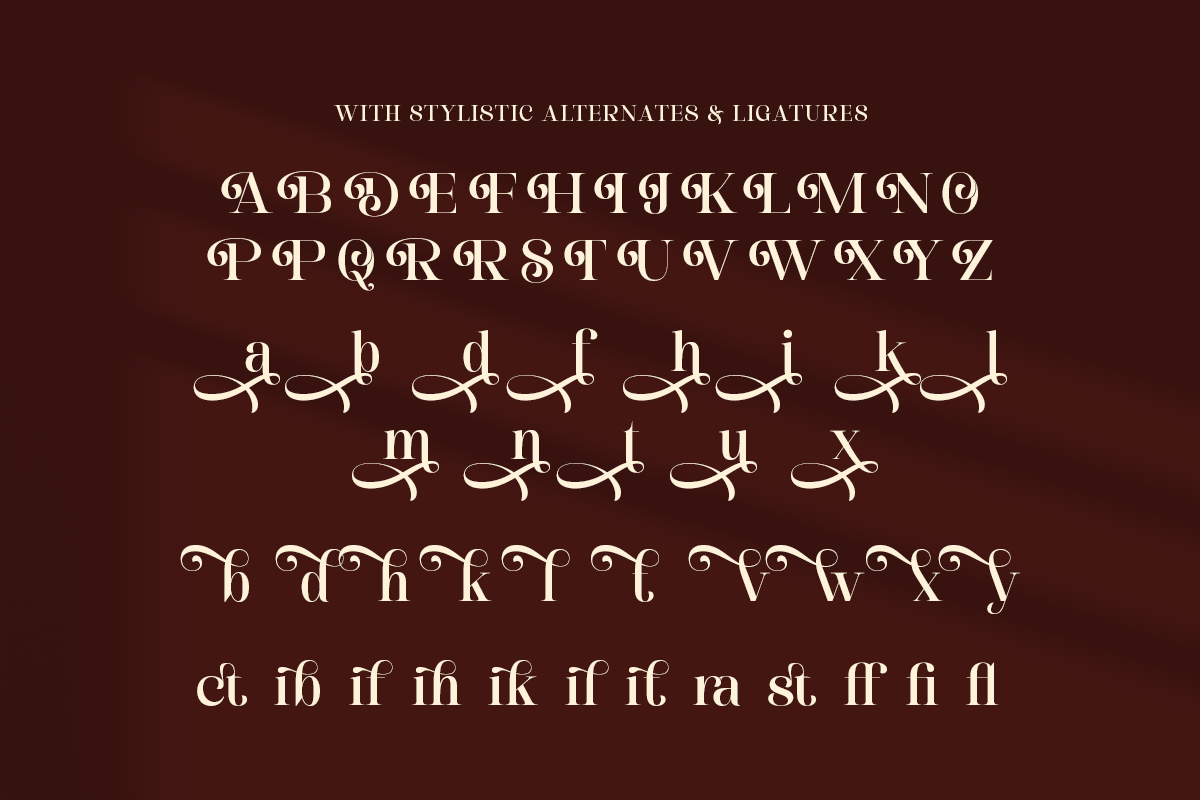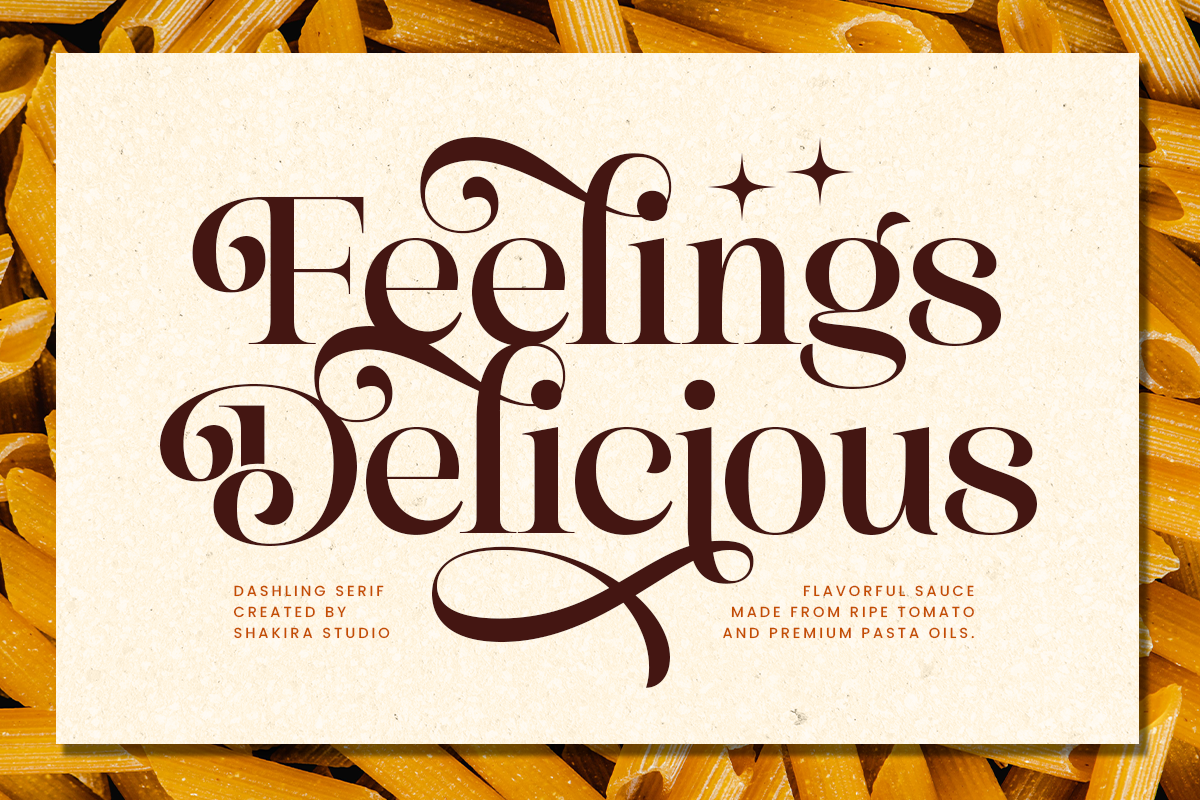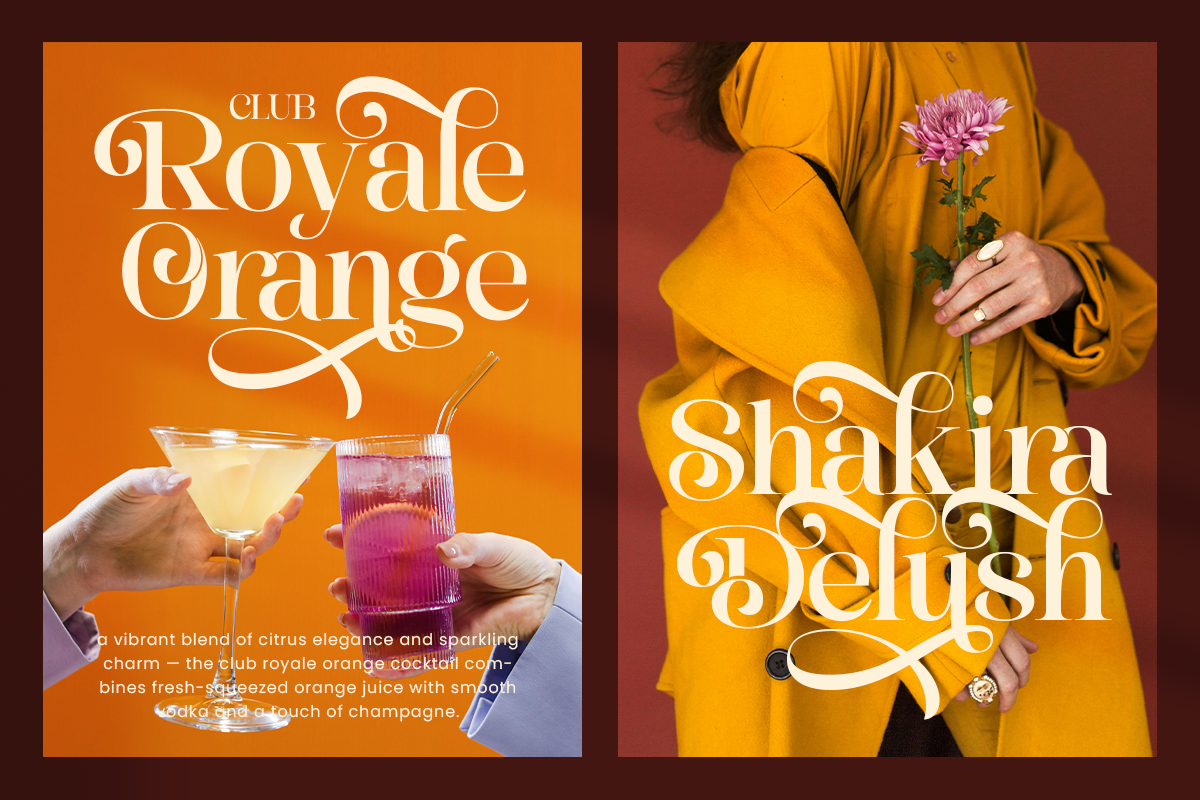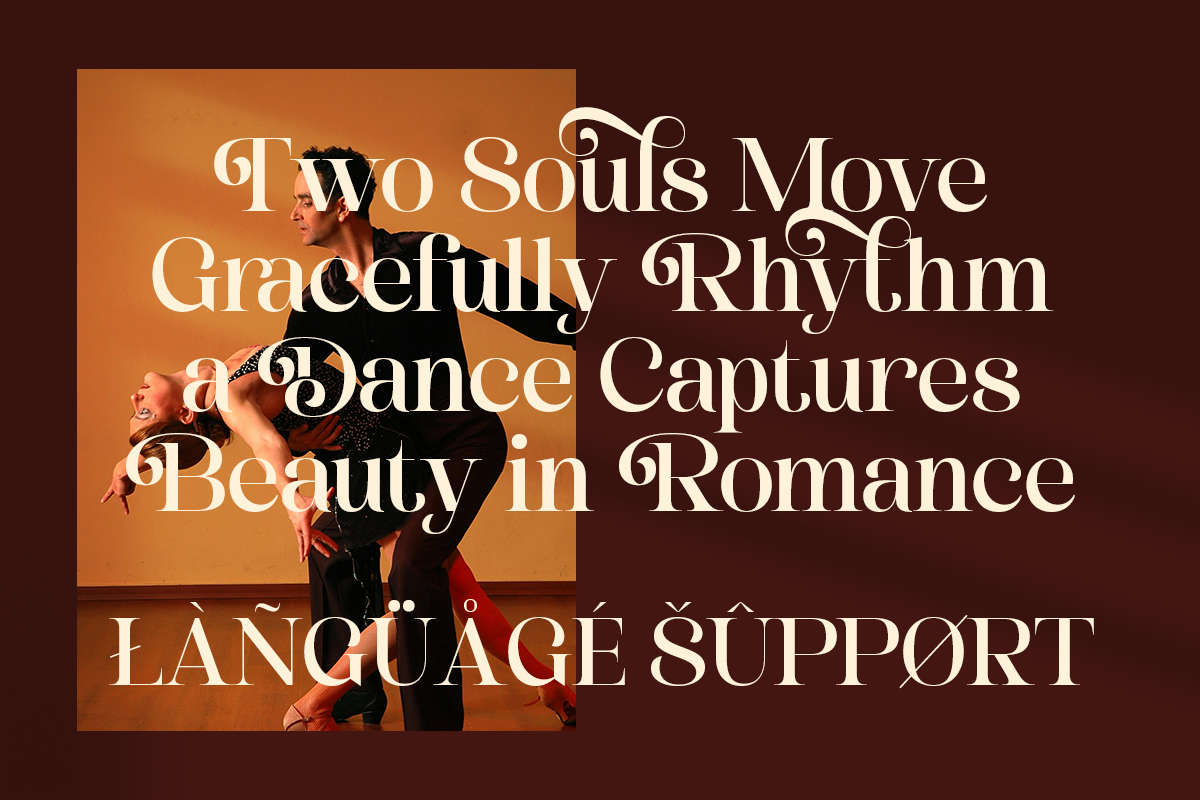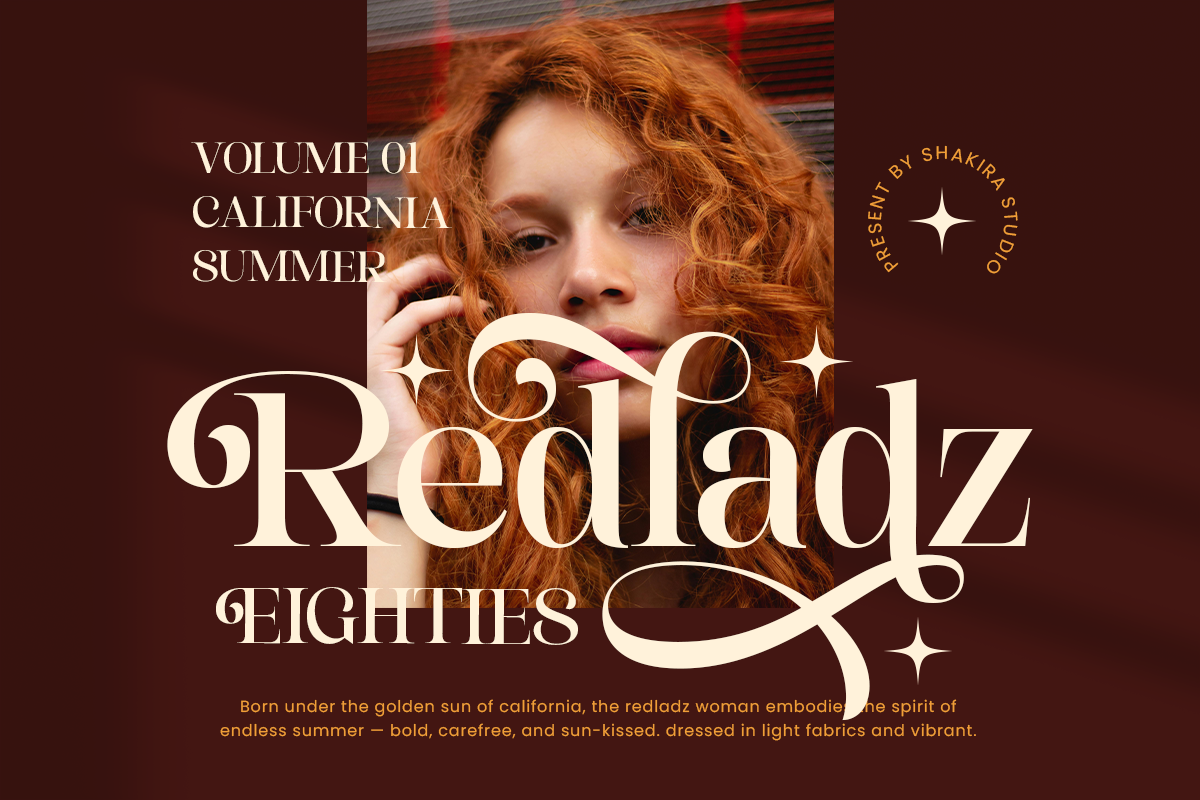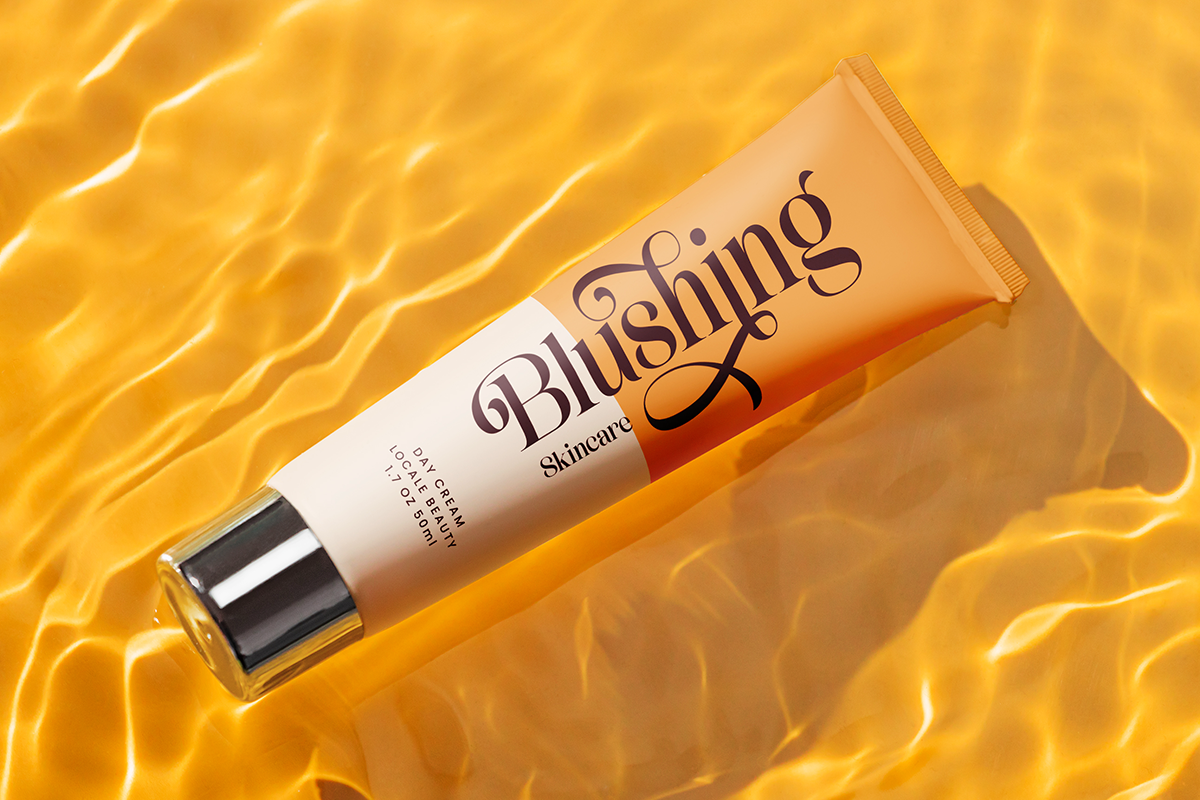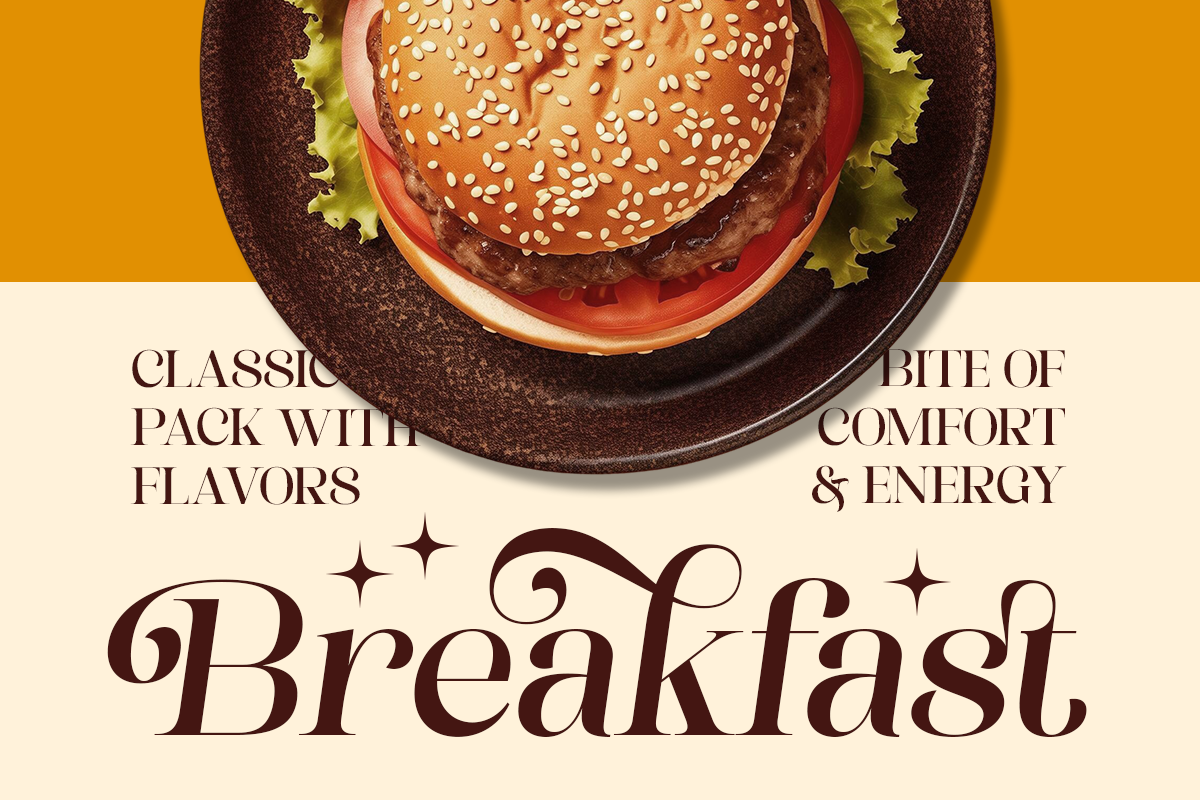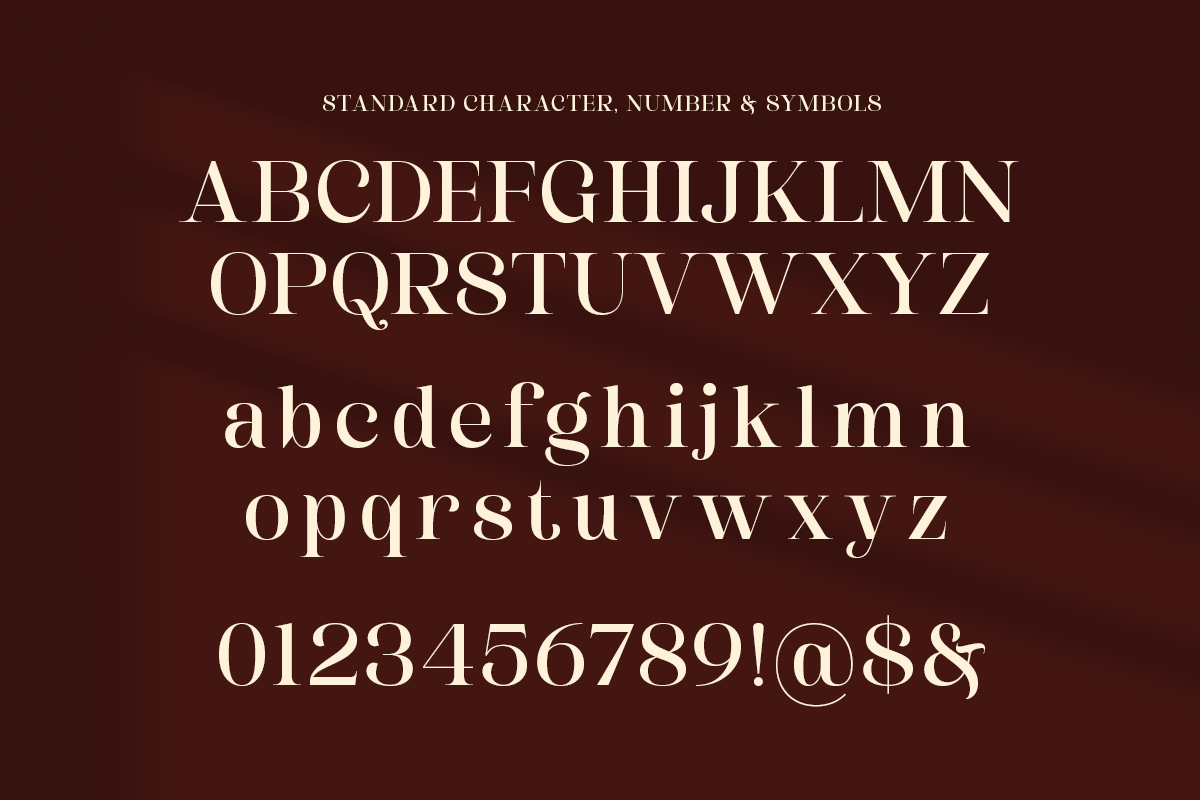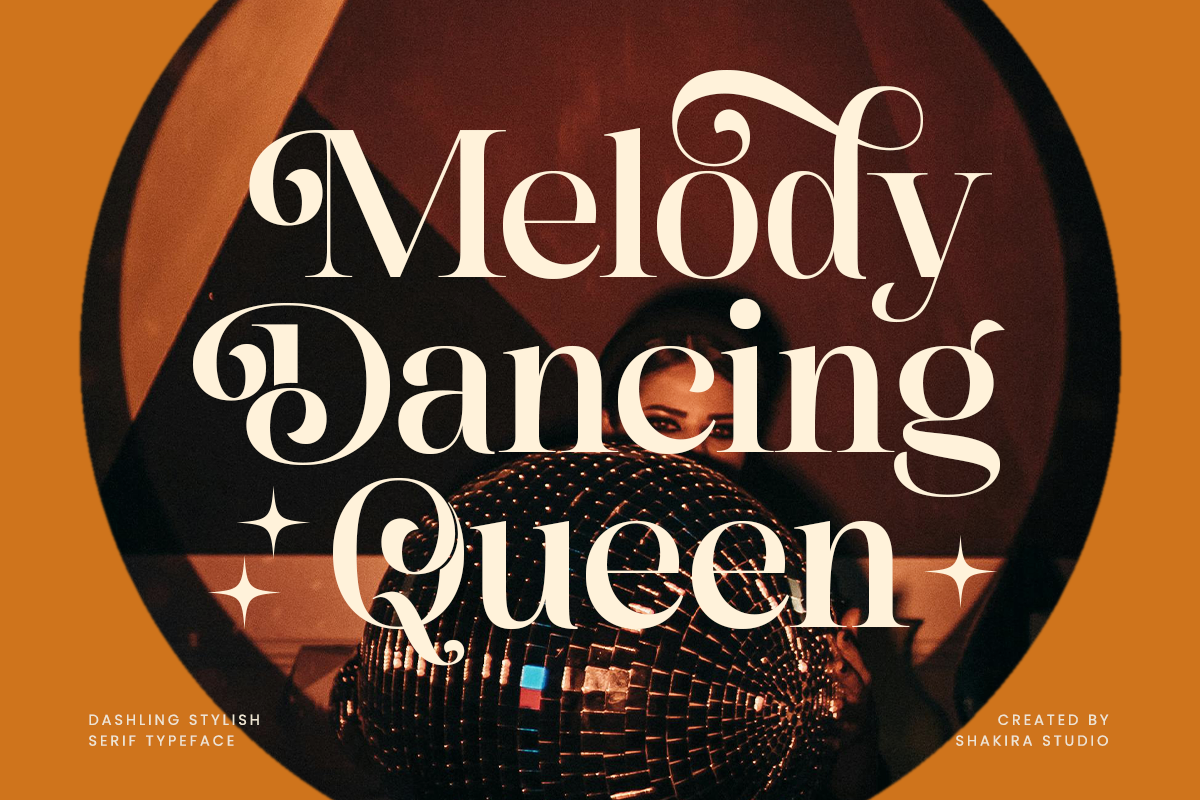
Dashling - Bold Modern Stylish Serif
Dashling is a bold serif font that blends playful curves with refined sophistication. Its dynamic ligatures and confident lines make it perfect for fashion branding, magazines, packaging, and editorial layouts. Designed to express both strength and femininity, Dashling elevates every design with style and charm.
- Regular & Italic
Perfect For: Creative branding, packaging, editorial headlines, and modern logo design.